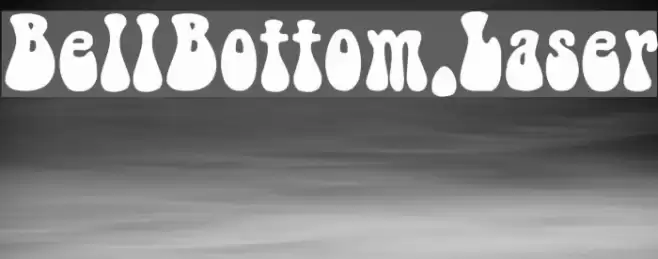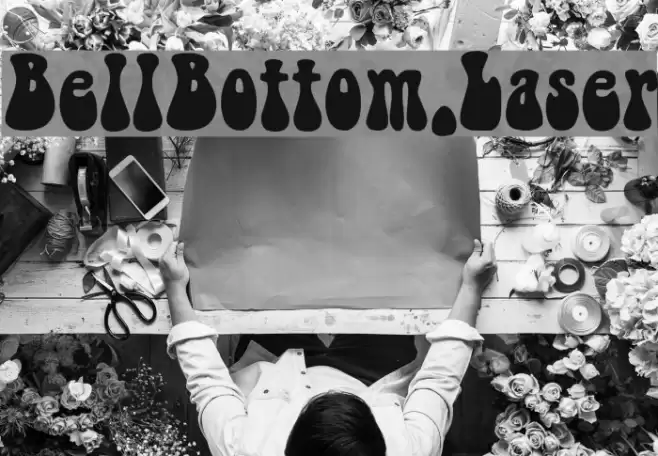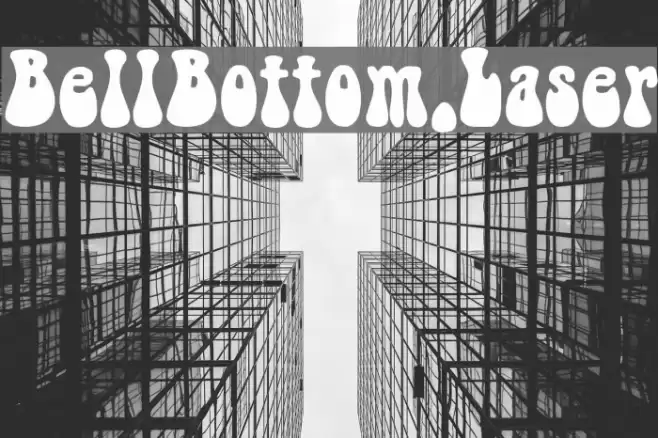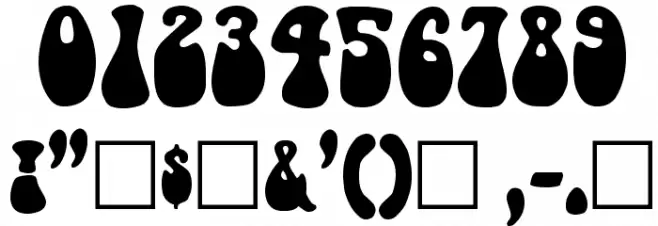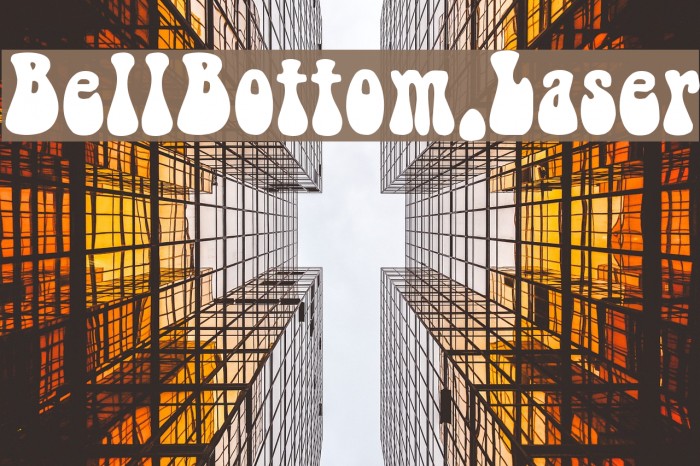
BellBottom.Laser Font
BellBottom.Laser Description
This font features a bold and playful design with a distinctly retro vibe reminiscent of the 1970s. The characters are rounded and bulbous, giving them a unique, almost liquid appearance. The exaggerated curves and thick strokes create a sense of movement and energy, making it ideal for eye-catching designs. The uppercase and lowercase letters maintain a consistent style, with the numbers and special characters following suit. This font's distinctive style makes it perfect for projects that require a fun, nostalgic feel.
A bold, retro font with rounded, bulbous characters and a playful style from Kids fonts.
- Proposed Projects: Ideal for retro-themed posters, album covers, event flyers, and branding that seeks a playful and nostalgic touch.
- Overall Style: Vintage